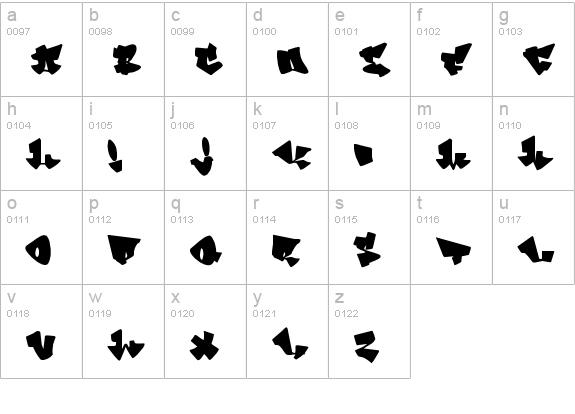
Homeboy Font Details
Homeboy font is a stylish and modern typeface that exudes coolness and urban flair. With its bold and eye-catching design, Homeboy font is perfect for making a statement in your creative projects. The versatility of this font allows it to be used in a variety of design applications, from posters and branding to social media graphics and apparel designs. What makes Homeboy font even more appealing is that it is available for free download at FontsMarket.com. This means that you can easily access this unique font and incorporate it into your designs without any cost. Whether you're looking to add a touch of edginess to your project or simply want to stand out from the crowd, Homeboy font is the perfect choice. Download it today and unleash your creativity with this free and trendy font option.